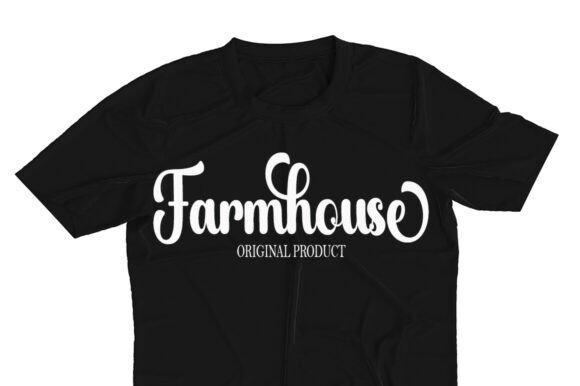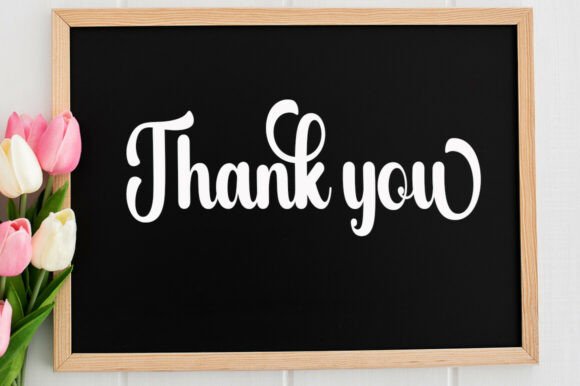
Stylish Alphabet Font
Stylish Alphabet is a font that exudes softness and elegance. With graceful strokes and a feminine touch, this font will elevate any design project to the highest level, be it branding, titles, wedding designs, invitations, signs, logos, labels, and more!